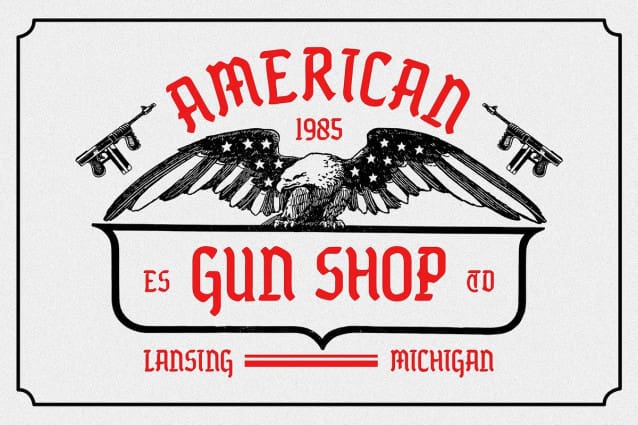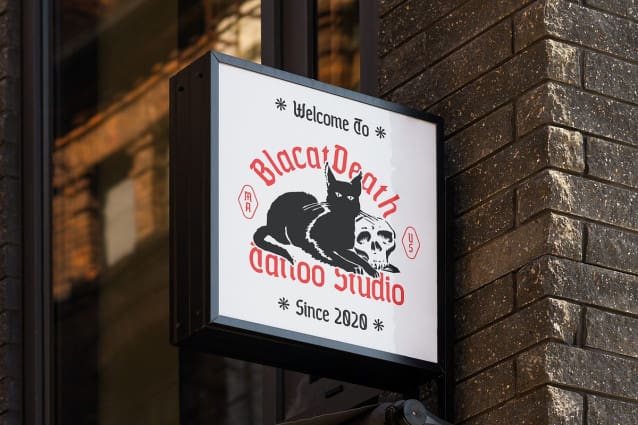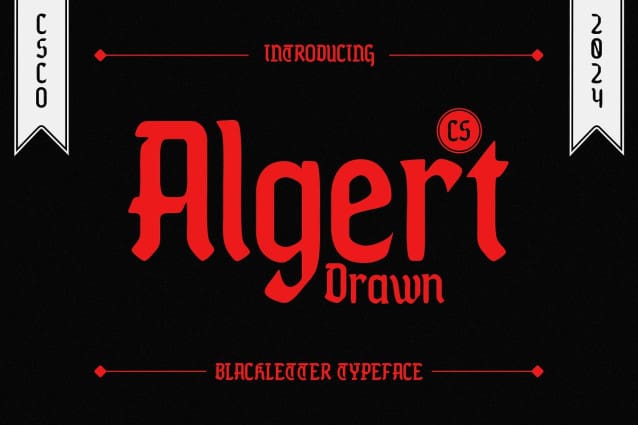
CS Algert Drawn Font
CS Algert Drawn Font is a captivating display font that features a distinctive gothic shape, showcasing sharp, dramatic characters rich in detail. Its traditional and artistic feel evokes a sense of nostalgia while presenting a strong visual impact. Each letterform is meticulously crafted to convey elegance and character, making it an ideal choice for designs that aim to stand out and tell a story.
Handmade Touch for Warmth and Uniqueness Enhanced with a drawn effect, this font adds a handmade touch that infuses each character with warmth and personality. This unique aspect creates an inviting atmosphere, allowing the font to resonate deeply with audiences. The combination of gothic design and a personal touch makes it perfect for projects seeking to highlight creativity and originality, ensuring that every piece is both unique and memorable.
Versatile Applications for Nostalgic and Elegant Designs This drawn font is ideal for a wide range of design applications, including event posters, book covers, and branding efforts that emphasize elegance and uniqueness. Its striking design and captivating details make it particularly effective in contexts where nostalgia and artistic expression are paramount. Whether you’re creating promotional materials for a vintage-themed event or a sophisticated publication, this font elevates your design with its timeless charm.